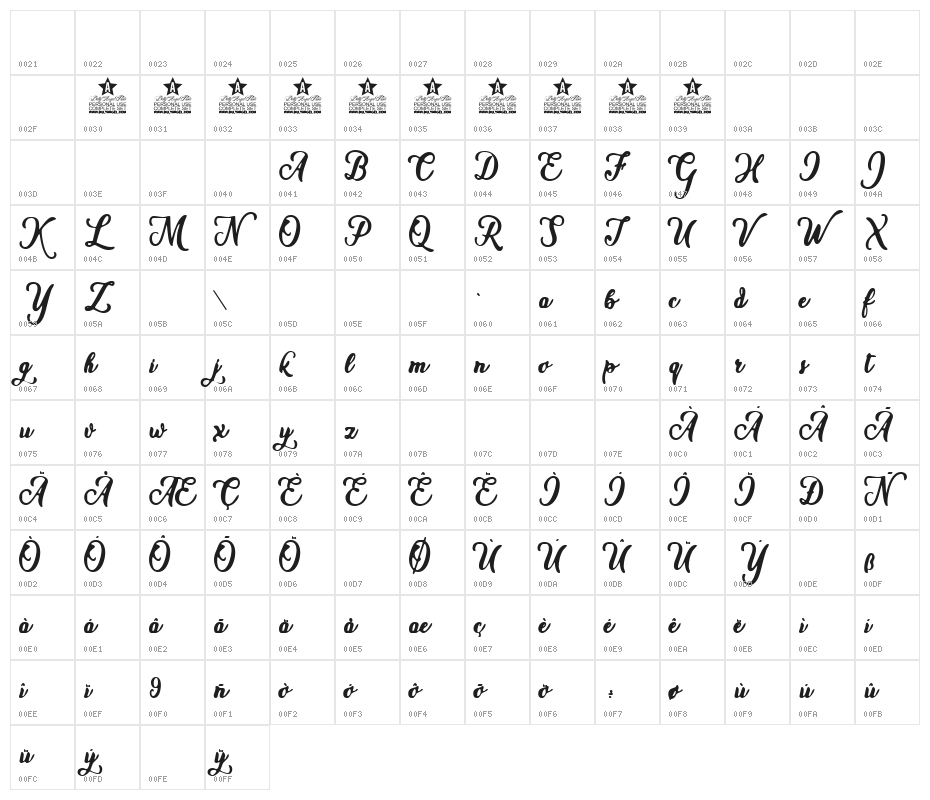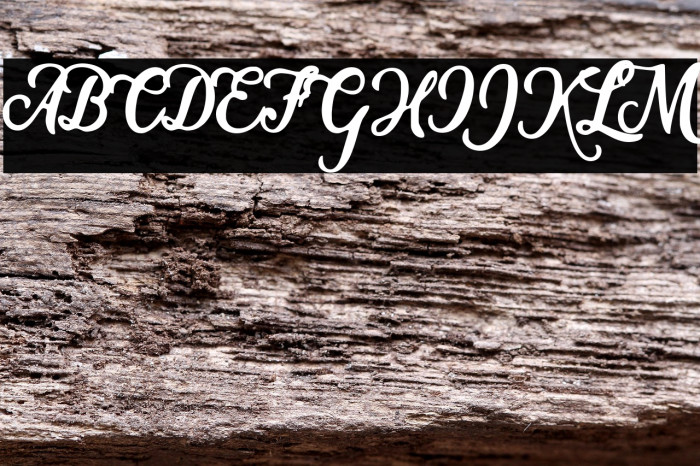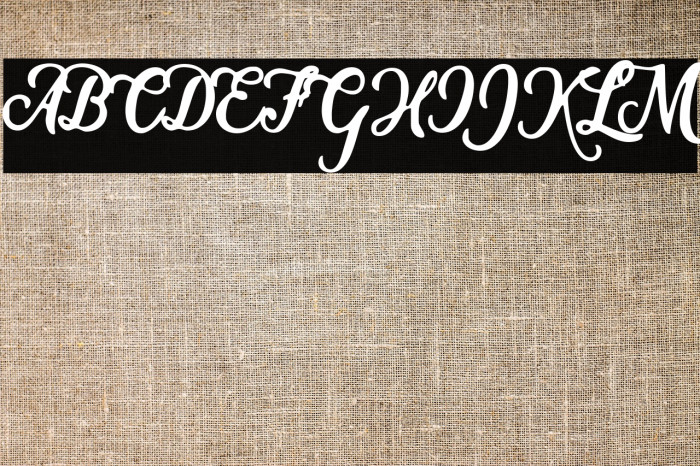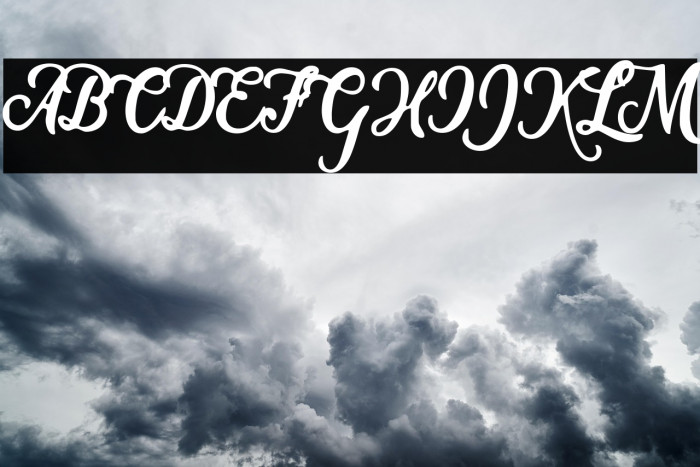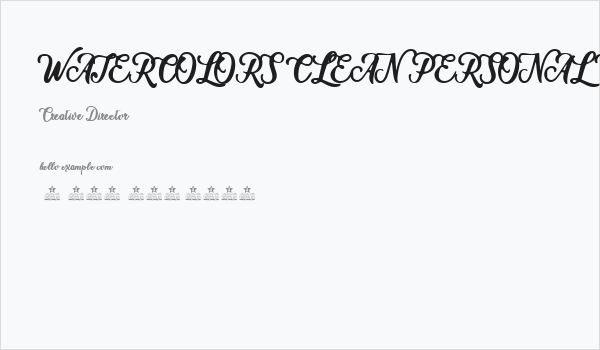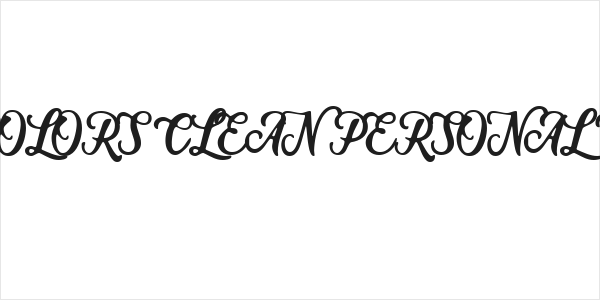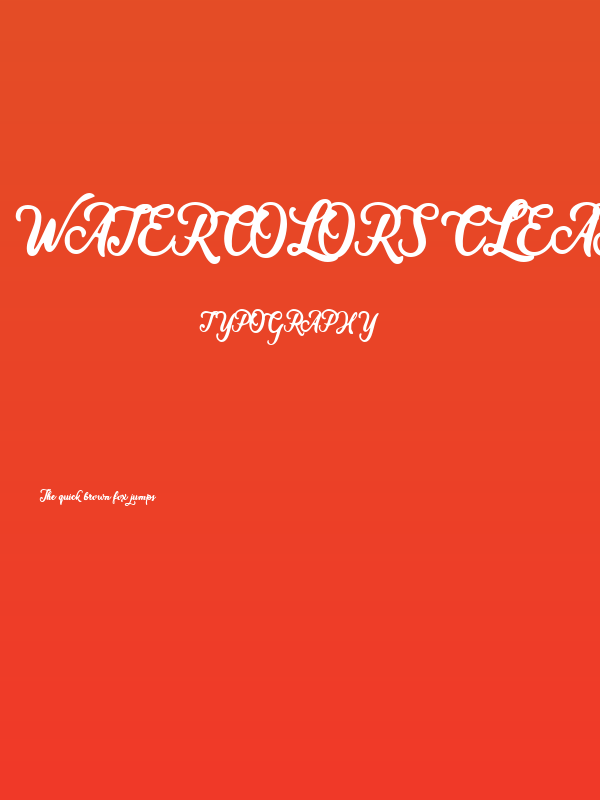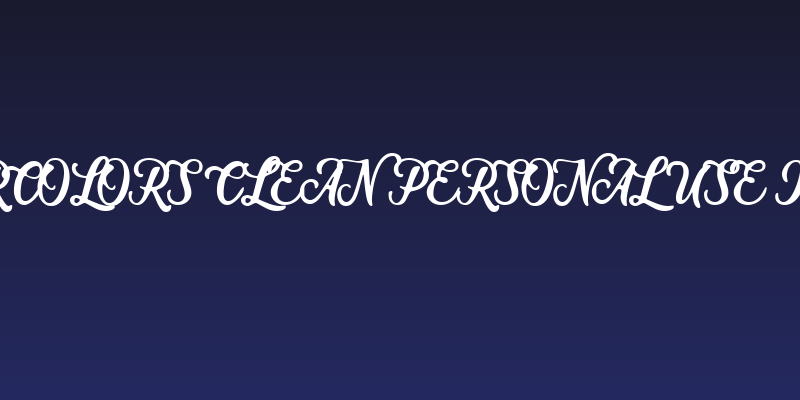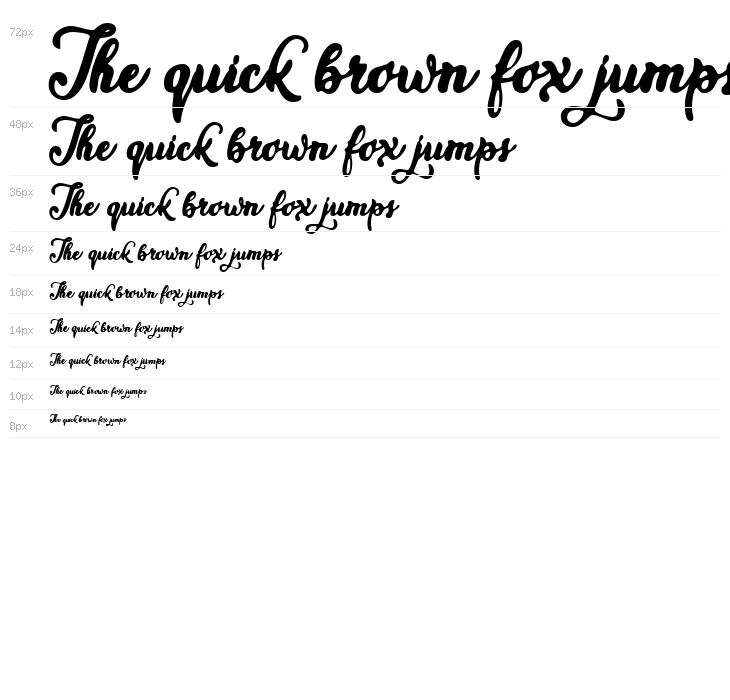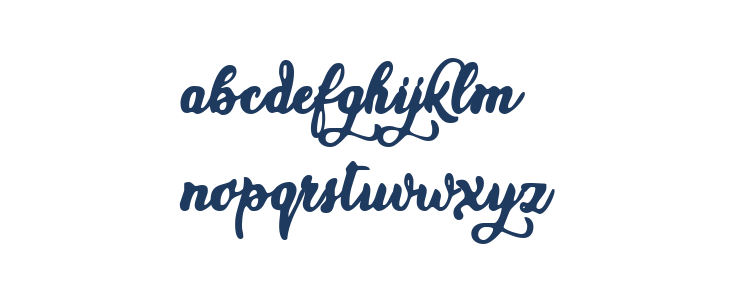
WATERCOLORS CLEAN PERSONAL USE Italic Font
WATERCOLORS CLEAN PERSONAL USE Italic Description
This font features an elegant and flowing script style, characterized by its smooth, cursive letterforms that mimic the fluidity of handwriting. The uppercase letters are ornate with sweeping curves, while the lowercase letters maintain a consistent rhythm and balance. The strokes are moderately thick, providing a bold presence without sacrificing readability. The font's italic nature adds a dynamic and sophisticated touch, making it suitable for creative and artistic projects. Its overall appearance is both classic and modern, offering versatility for various design needs.
| Overall Style | Classic, Modern |
| Proposed Projects | Ideal for wedding invitations, greeting cards, logos, and branding materials that require a personal and artistic touch. |